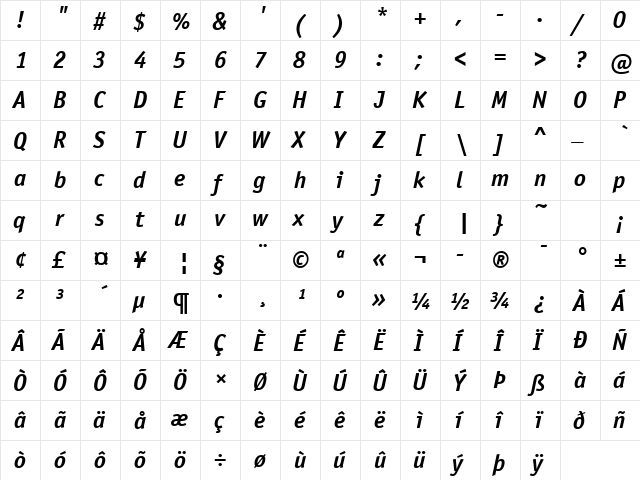
Officina Sans ITC TT BoldItalic
Design Context for Officina Sans ITC TT Typeface
Officina Sans ITC TT is a composed and adaptable typeface that performs quietly and consistently across a wide range of design contexts. The slanted form adds forward momentum and visual energy. The heavy weight commands attention and anchors typographic hierarchies.
Pro Tip: Try Officina Sans ITC TT for annotation and caption copy alongside an upright companion — the contrast in angle creates a dynamic but ordered typographic system.